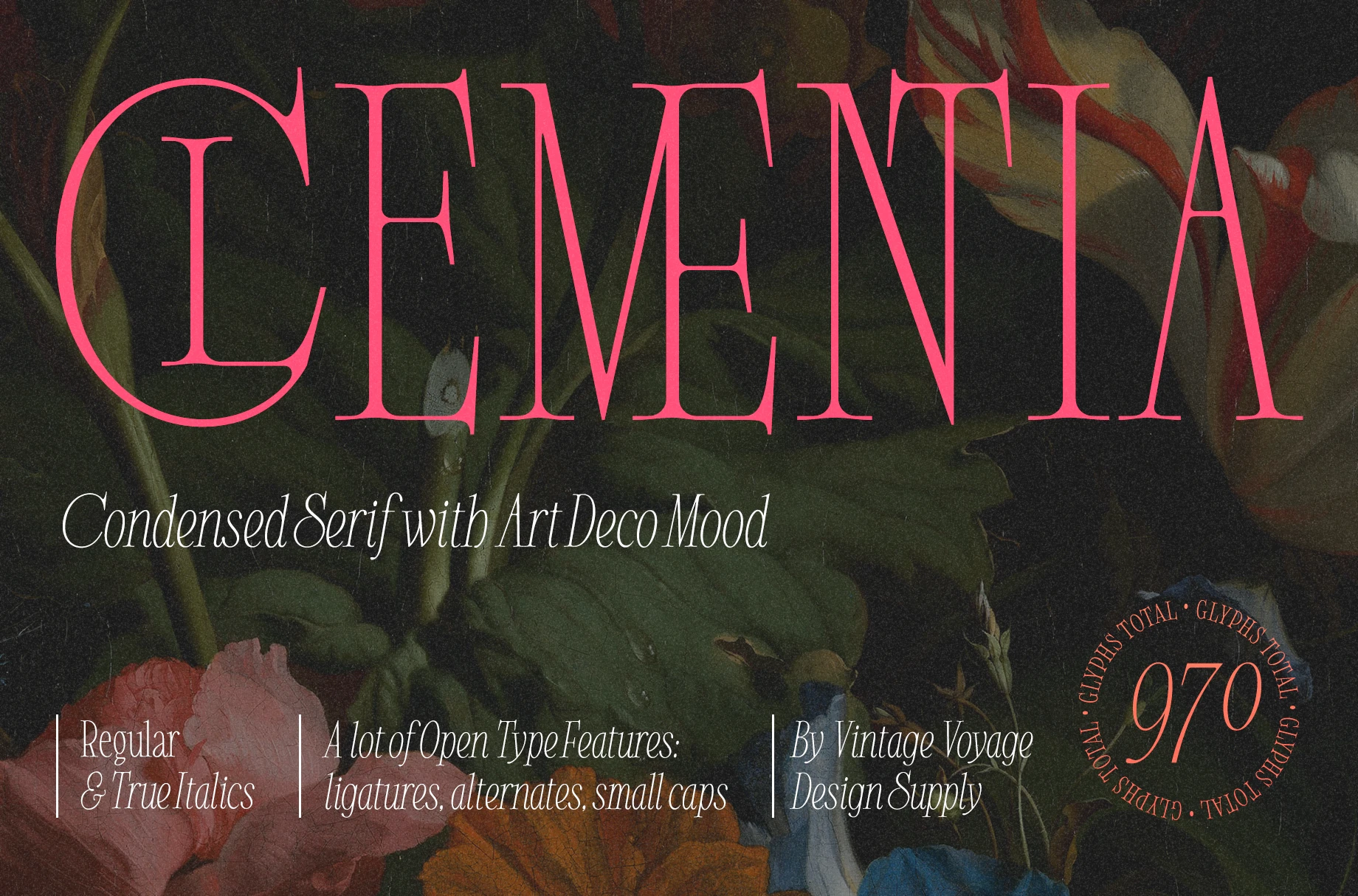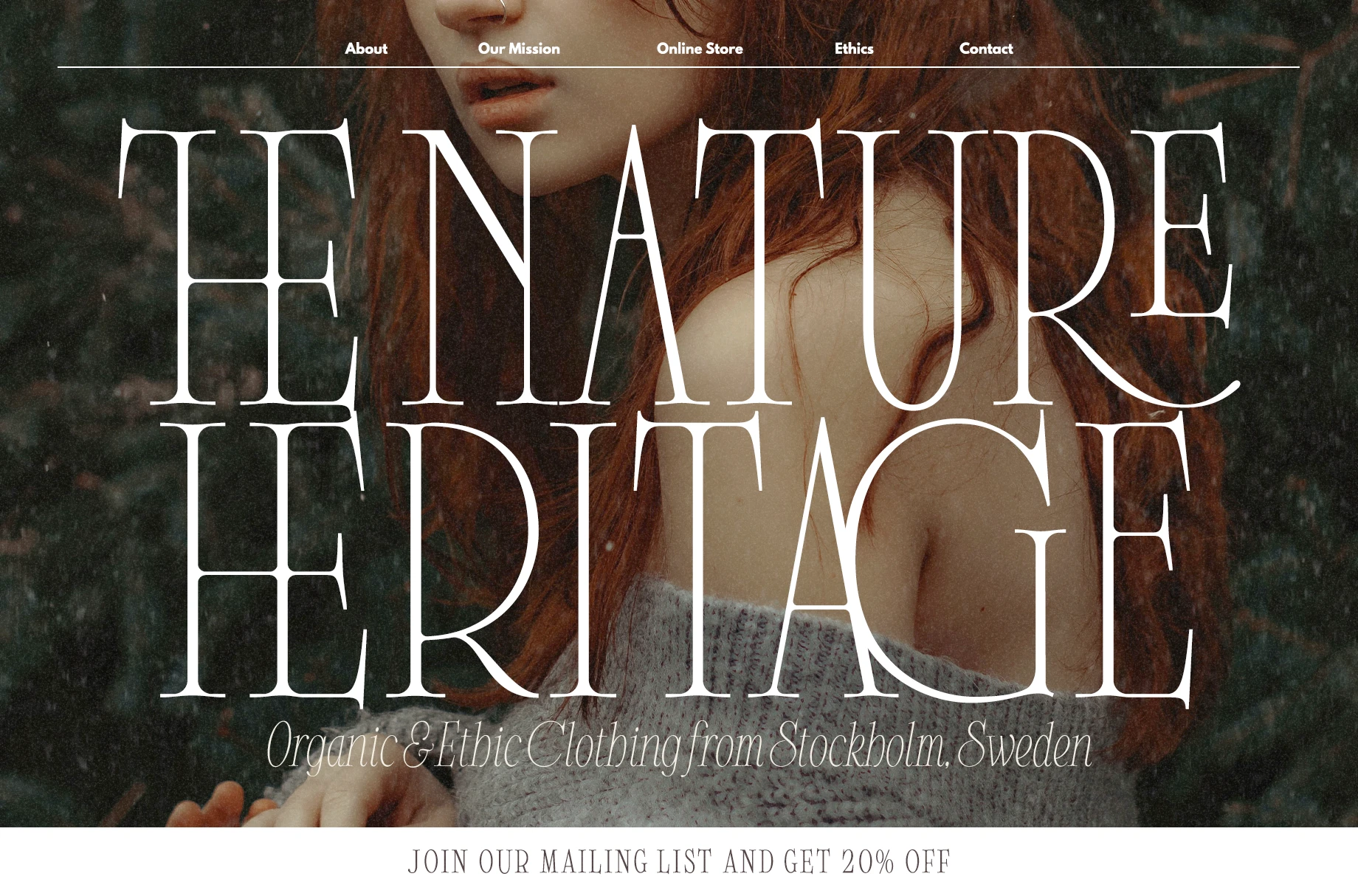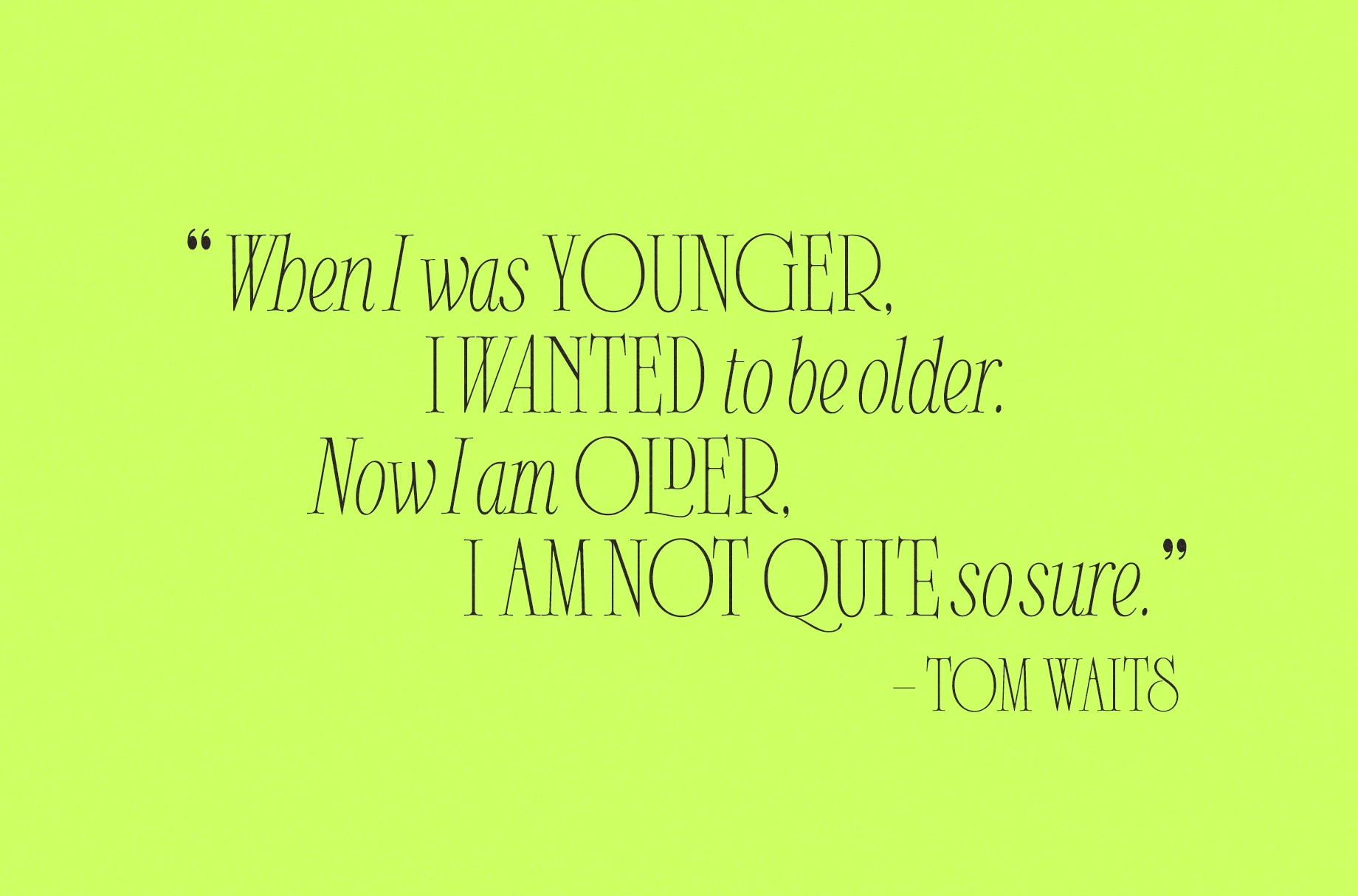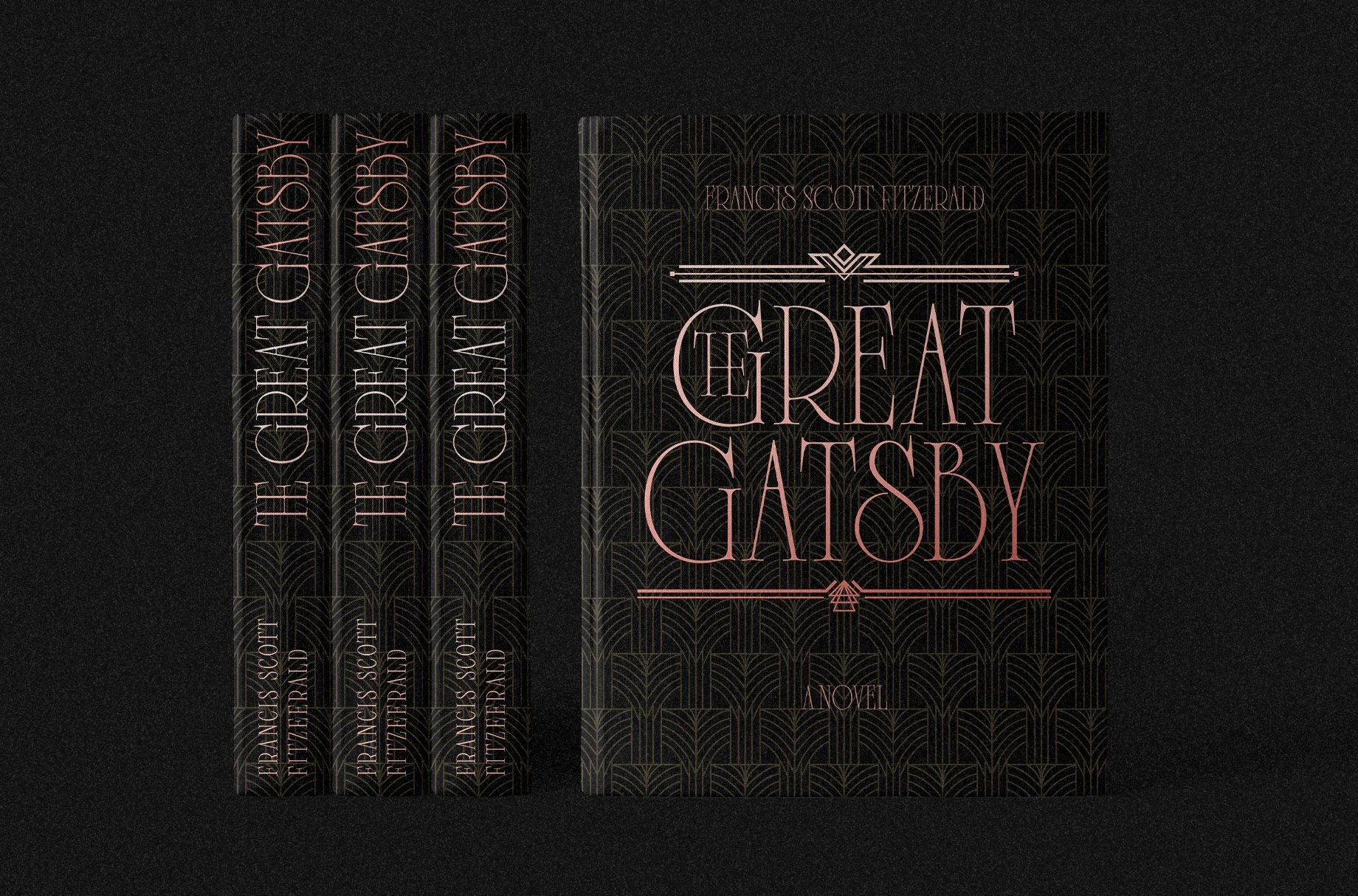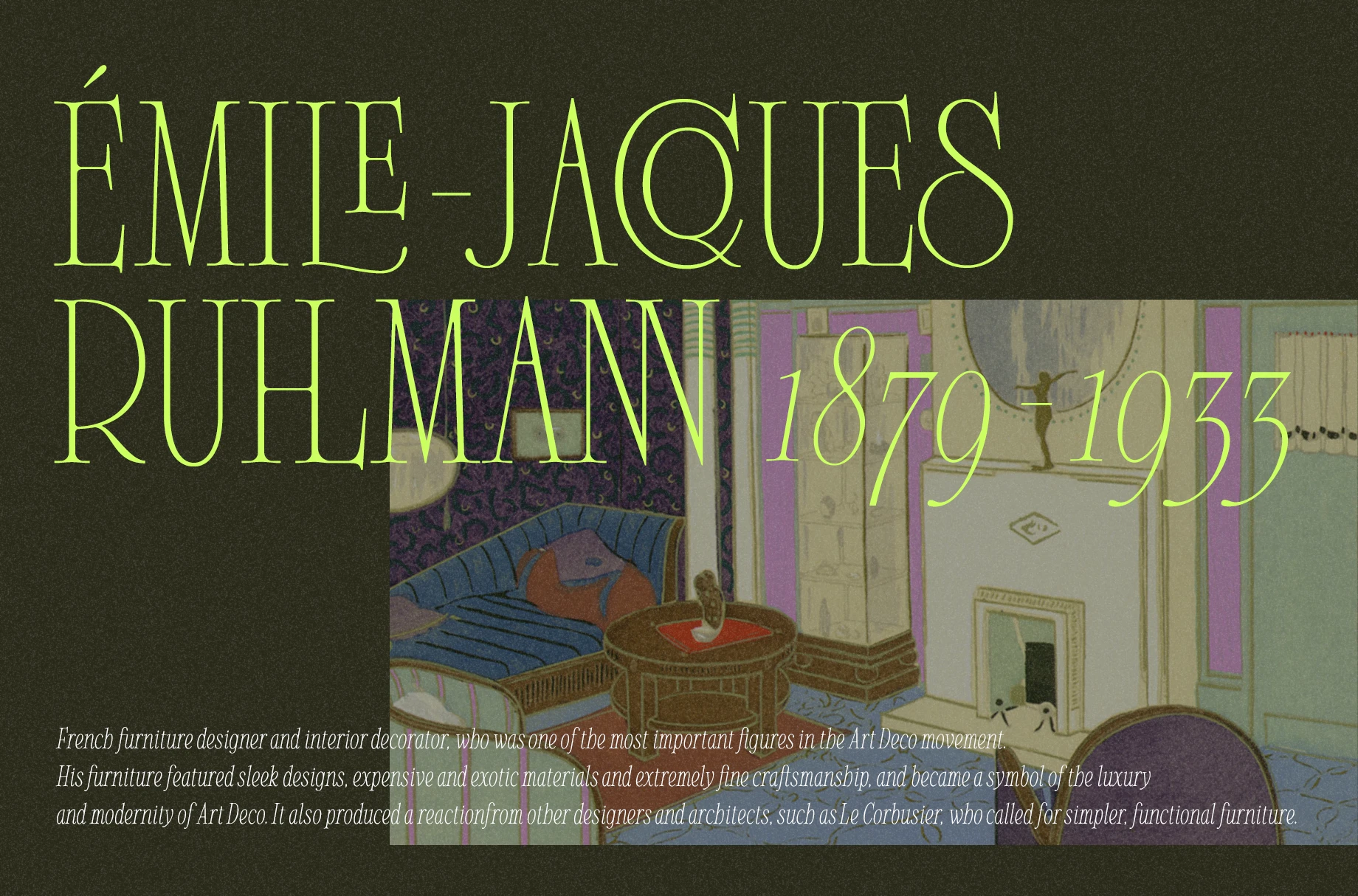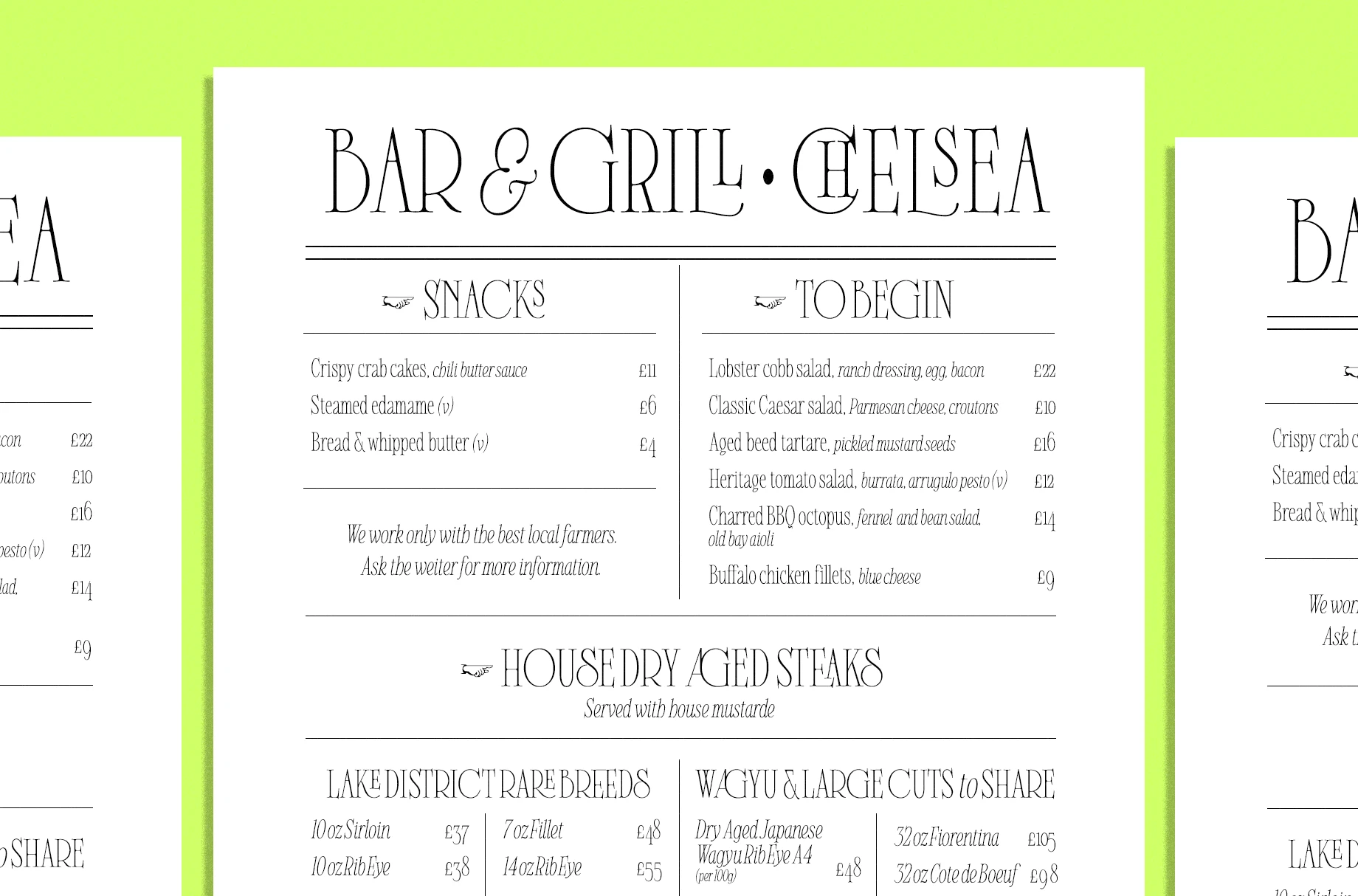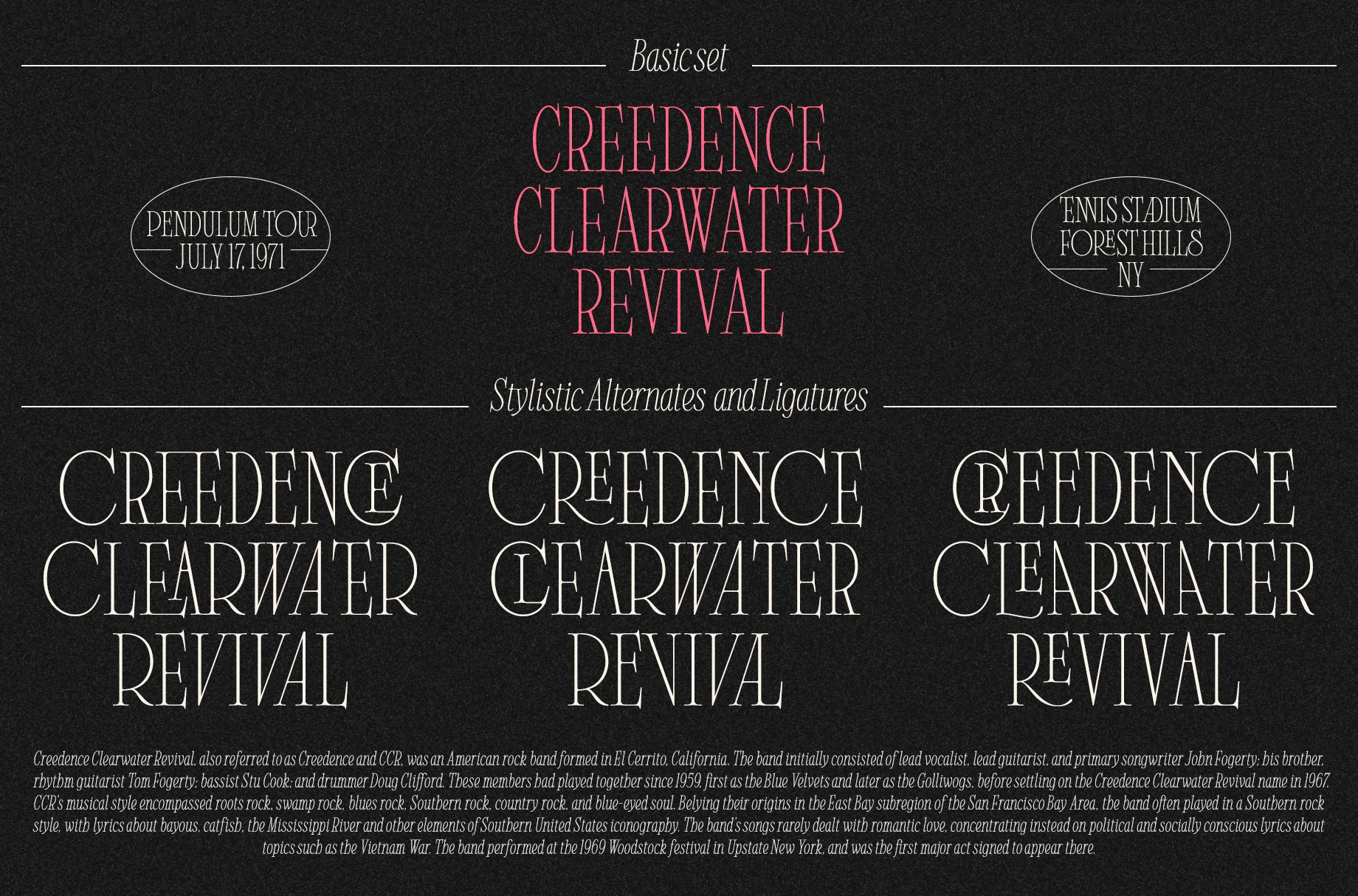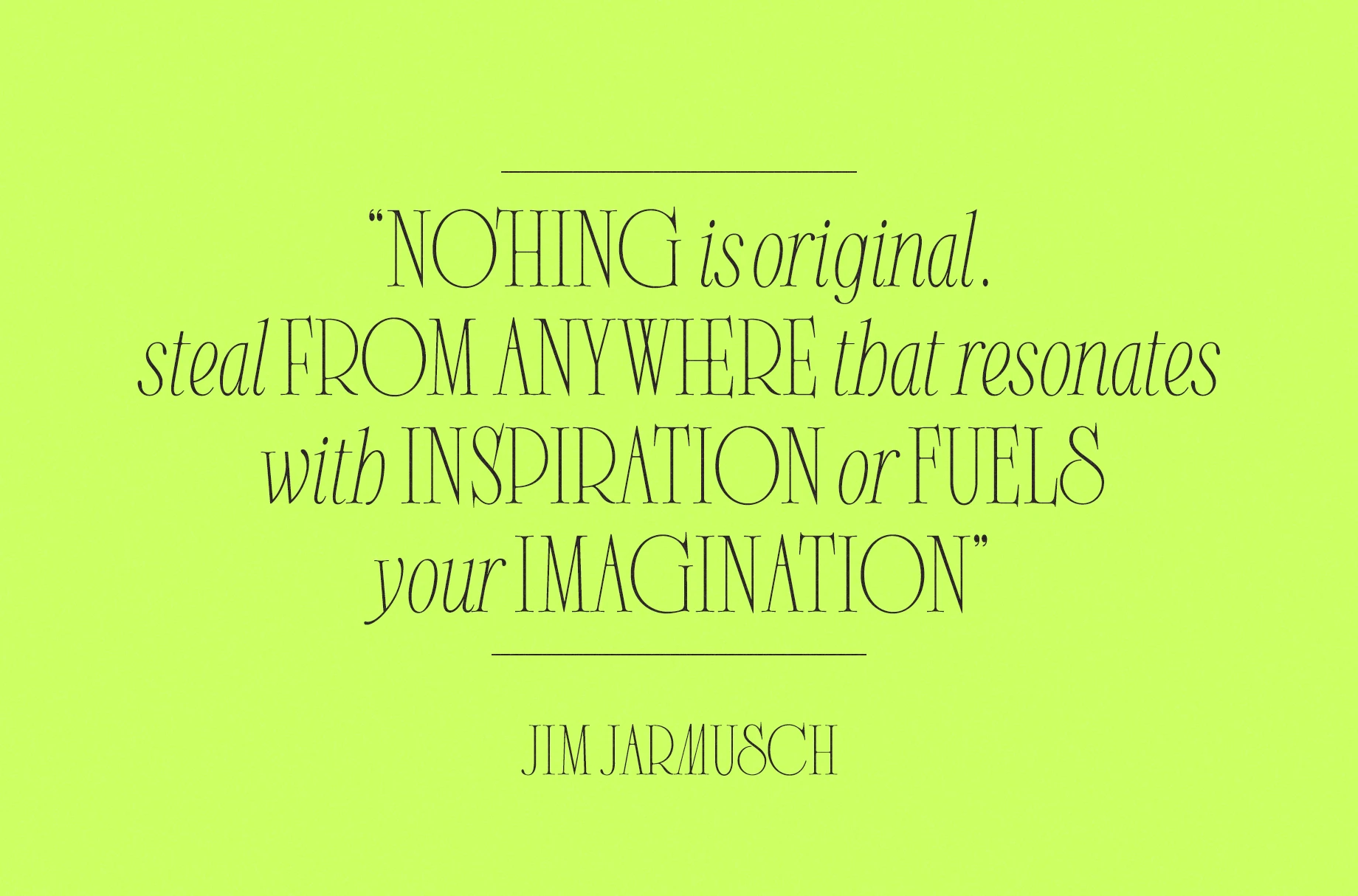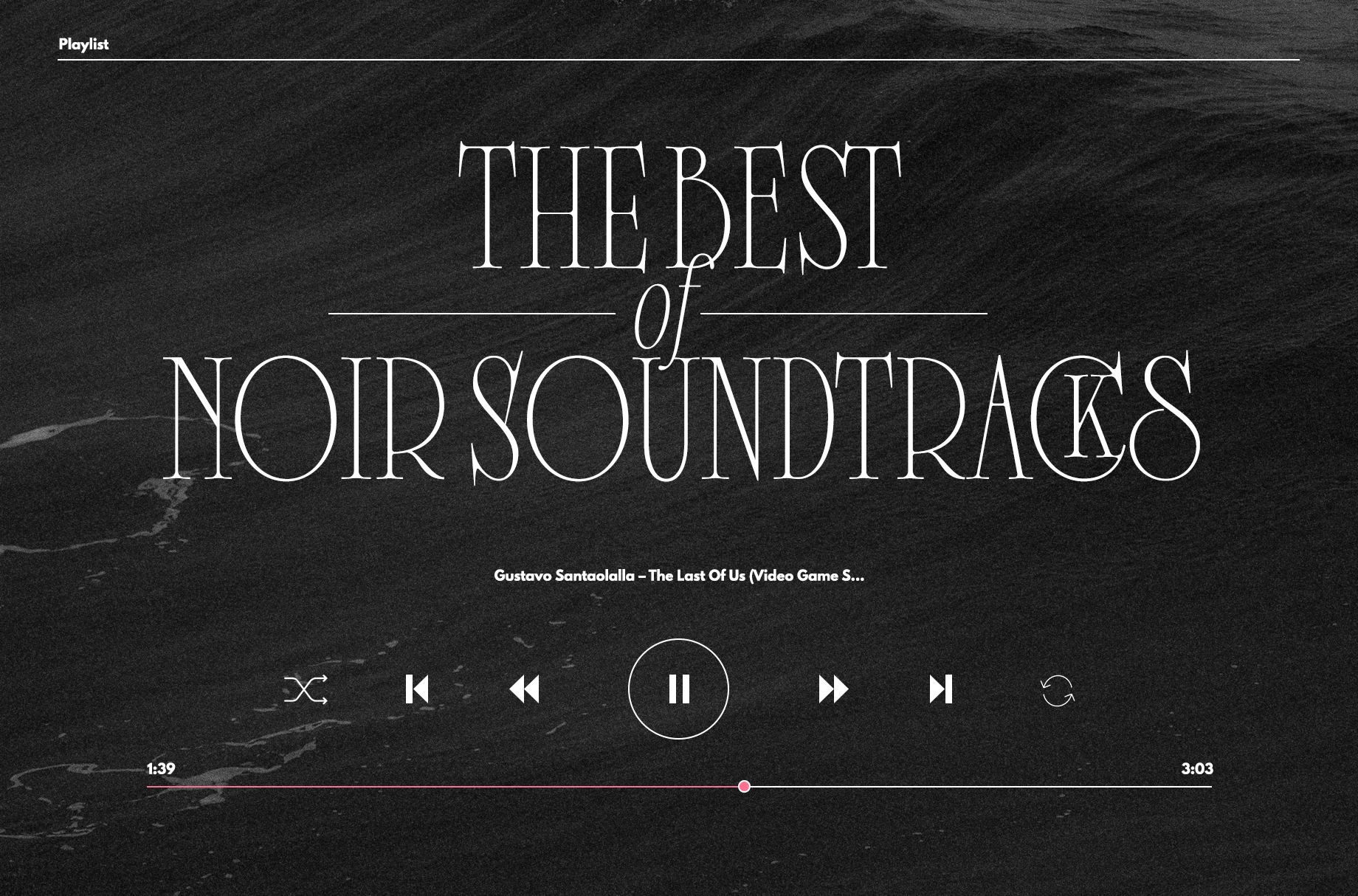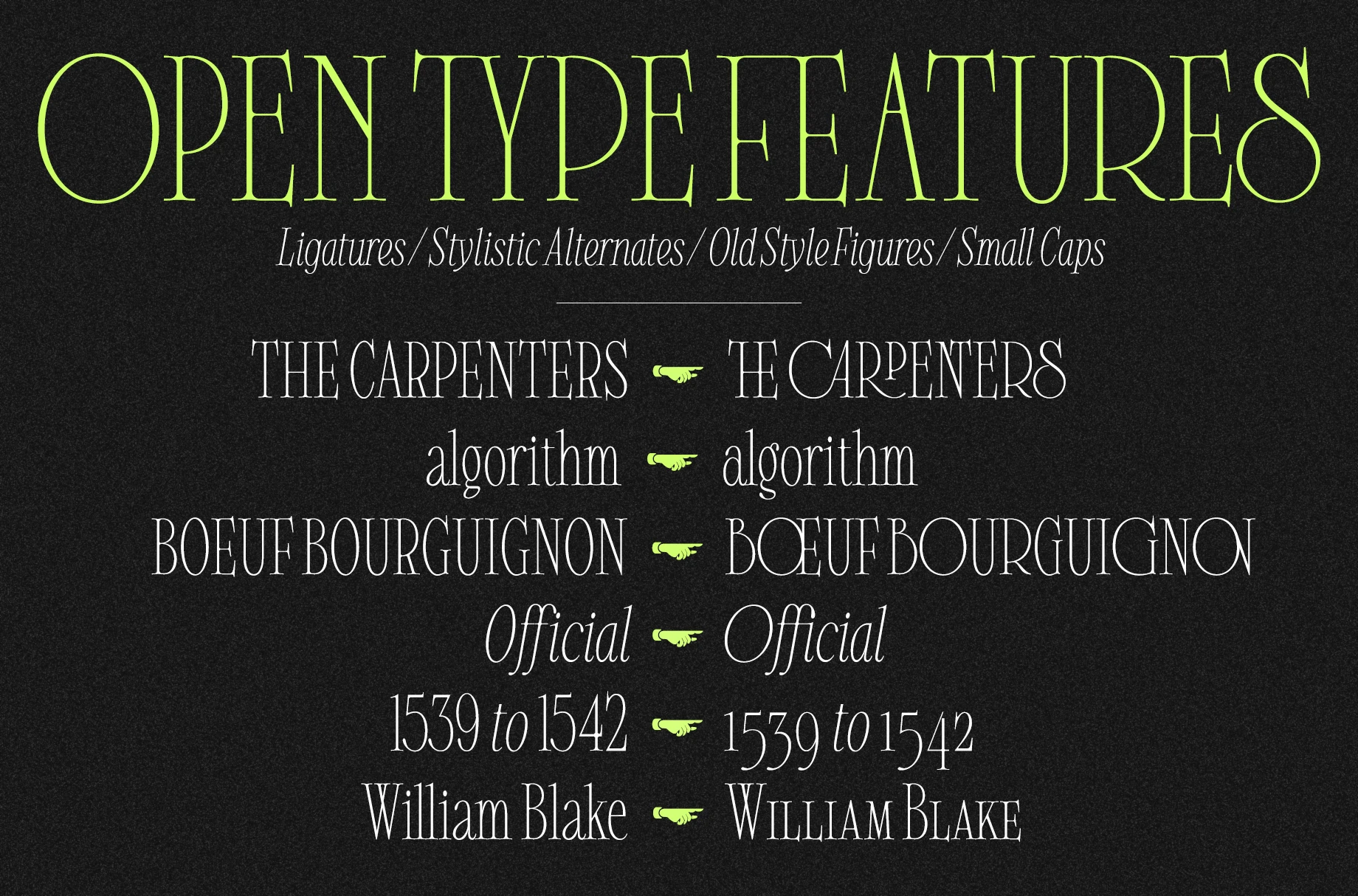
Clementia Font Family
Clementia is a stylish condensed serif font with a strong Art Deco influence. Features a wide range of stylistic alternates and ligatures for distinctive, custom looks. Adds elegance and character to cafe menus, wedding invitations, branding, magazine headers, t-shirt prints, and posters. Offers both refined simplicity with the basic set and expressive flair with decorative options. Designed for projects that seek a blend of vintage charm and artistic expression.
• Chinese Pinyin
• Common Ligatures
• Fractions
• Lining Numerals
• Old Style Numerals
• Ordinal Numerals
• Proportional Numerals
• Small Capitals
• Small Capitals for Capitals
• Stylistic Sets
• Superscript
• Tabular Numerals